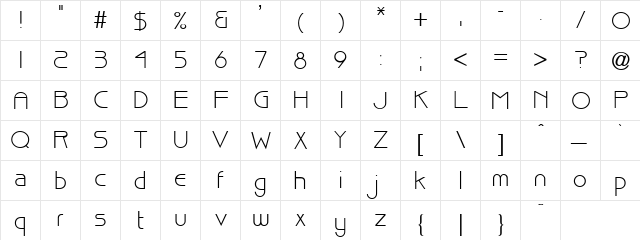
Kithoos Wait Regular
Design Context for Kithoos Wait Typeface
Kithoos Wait is a composed and adaptable typeface that performs quietly and consistently across a wide range of design contexts.